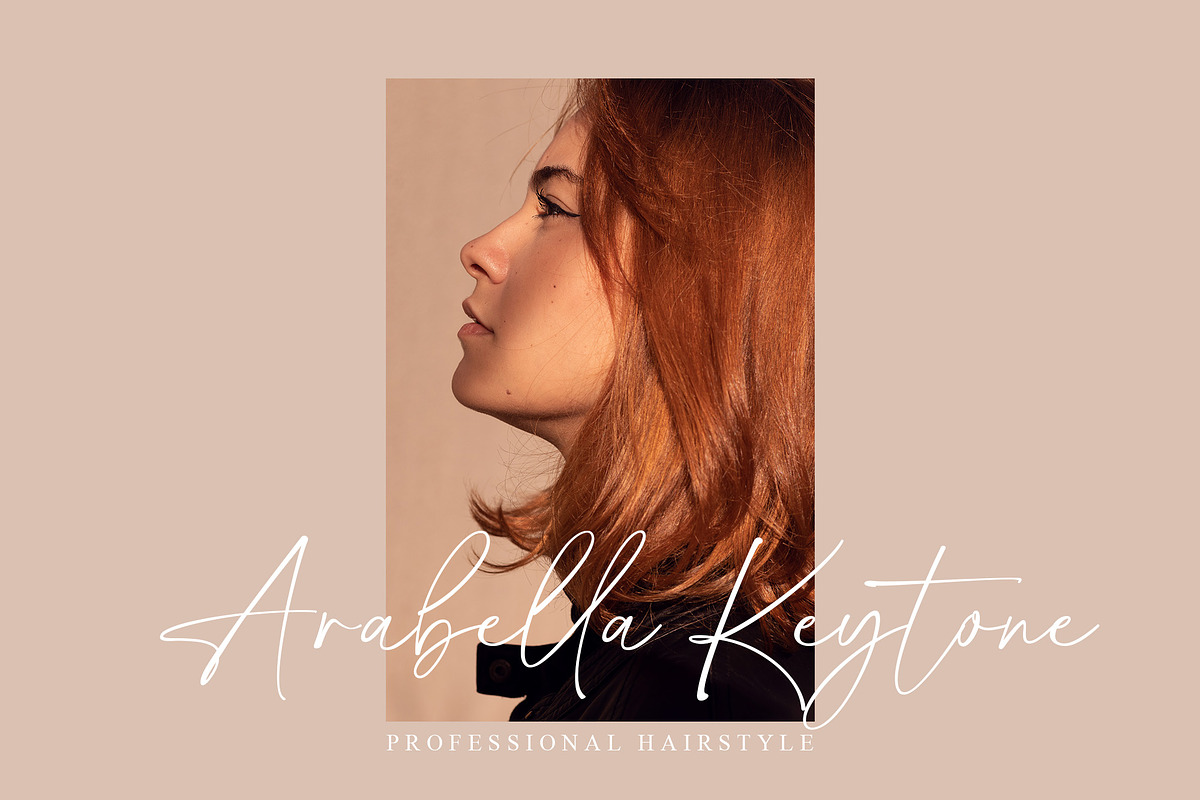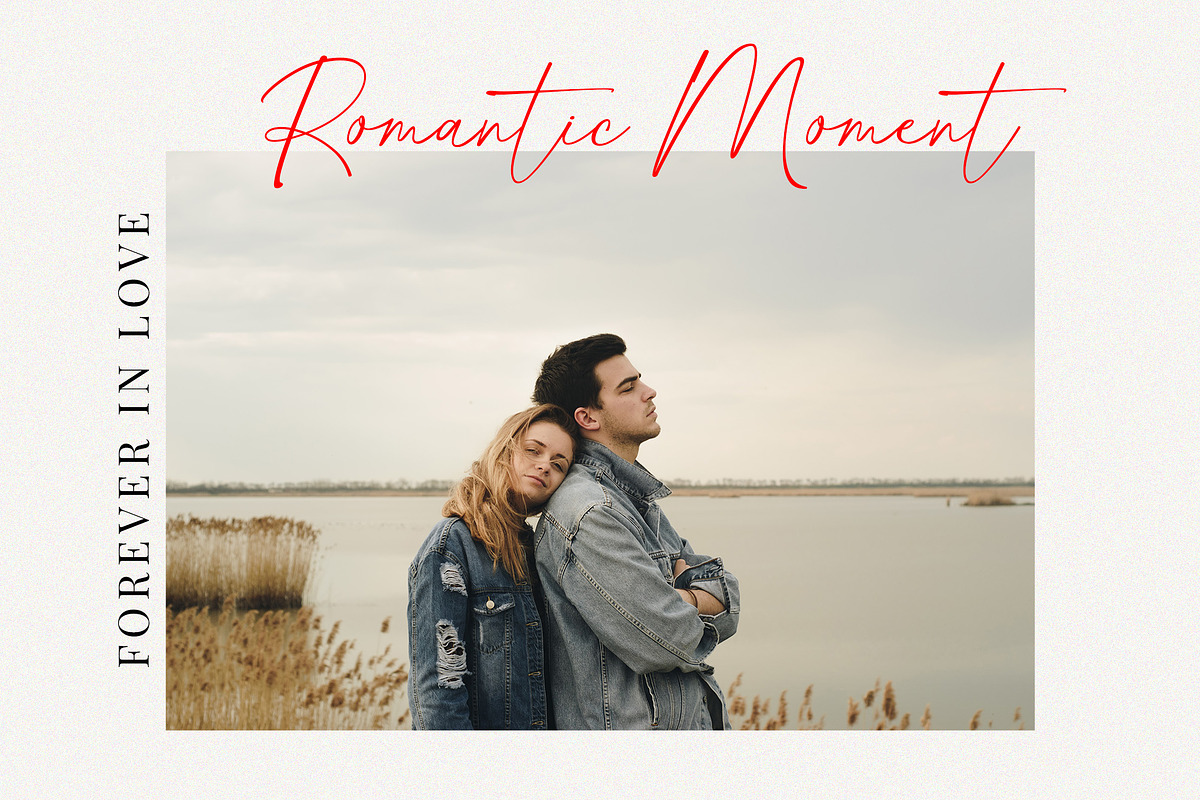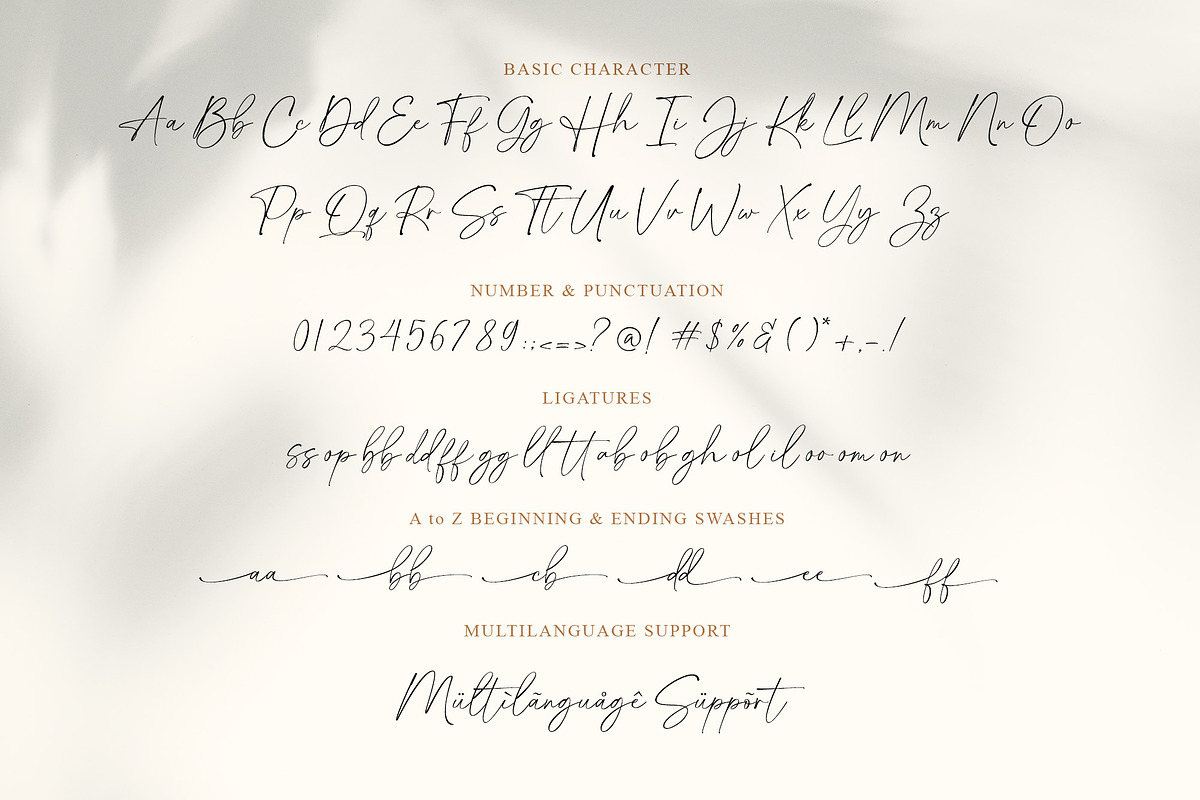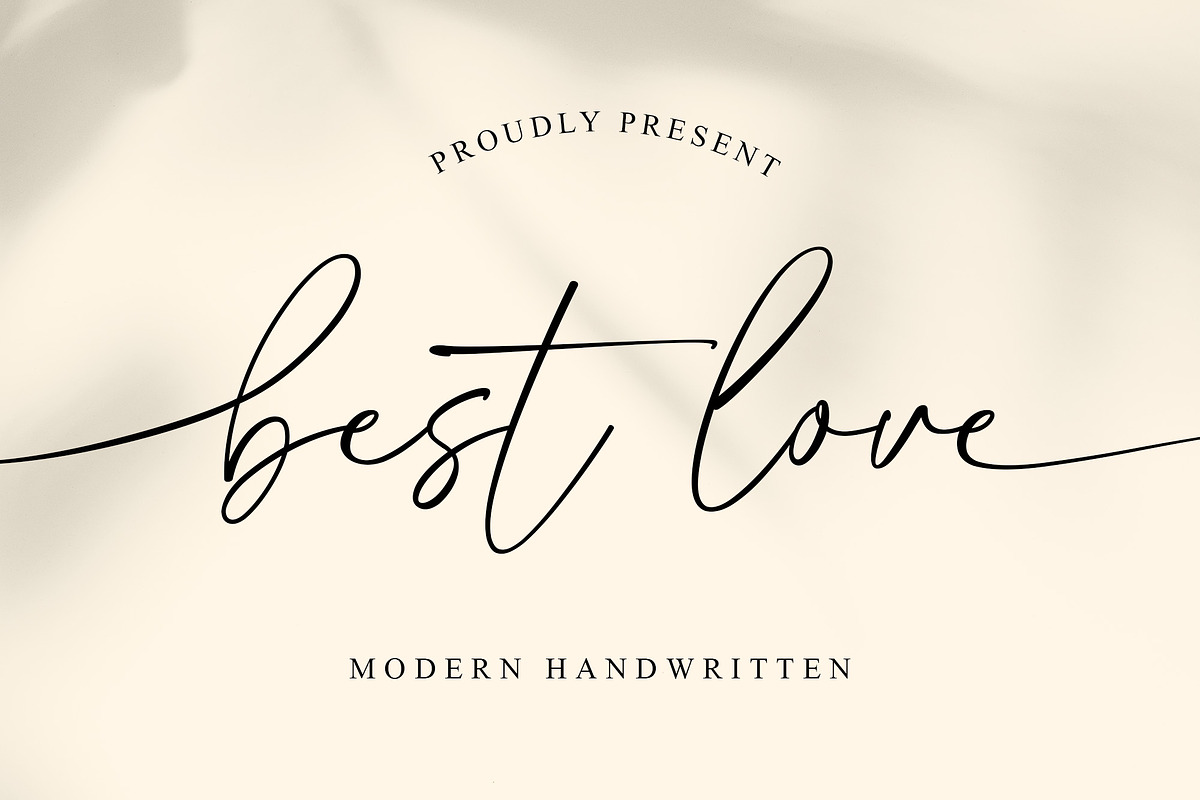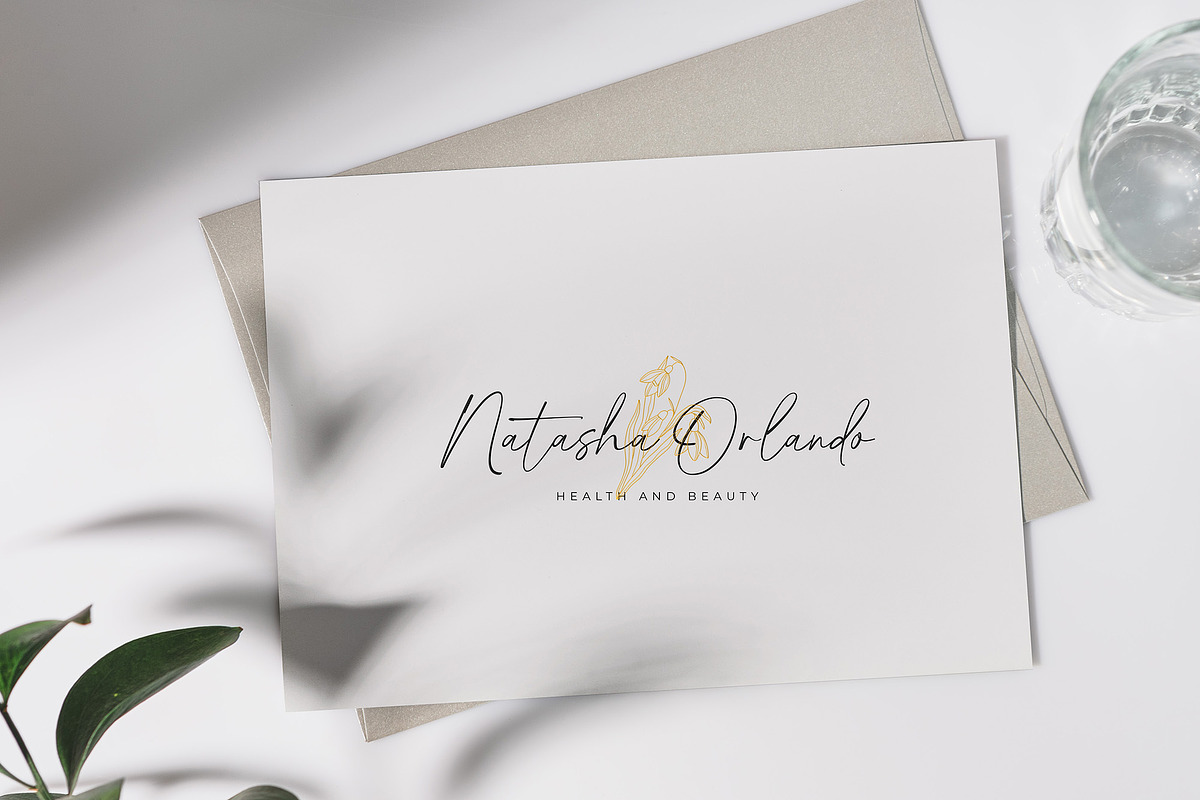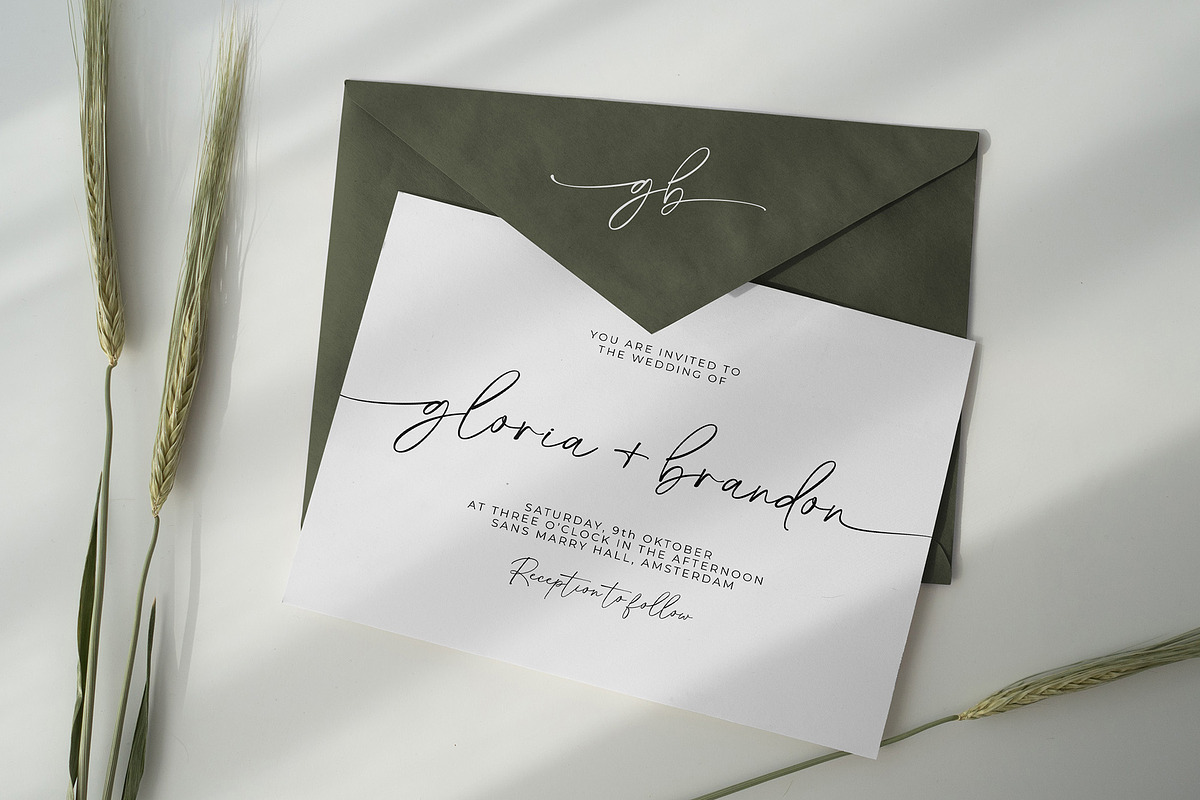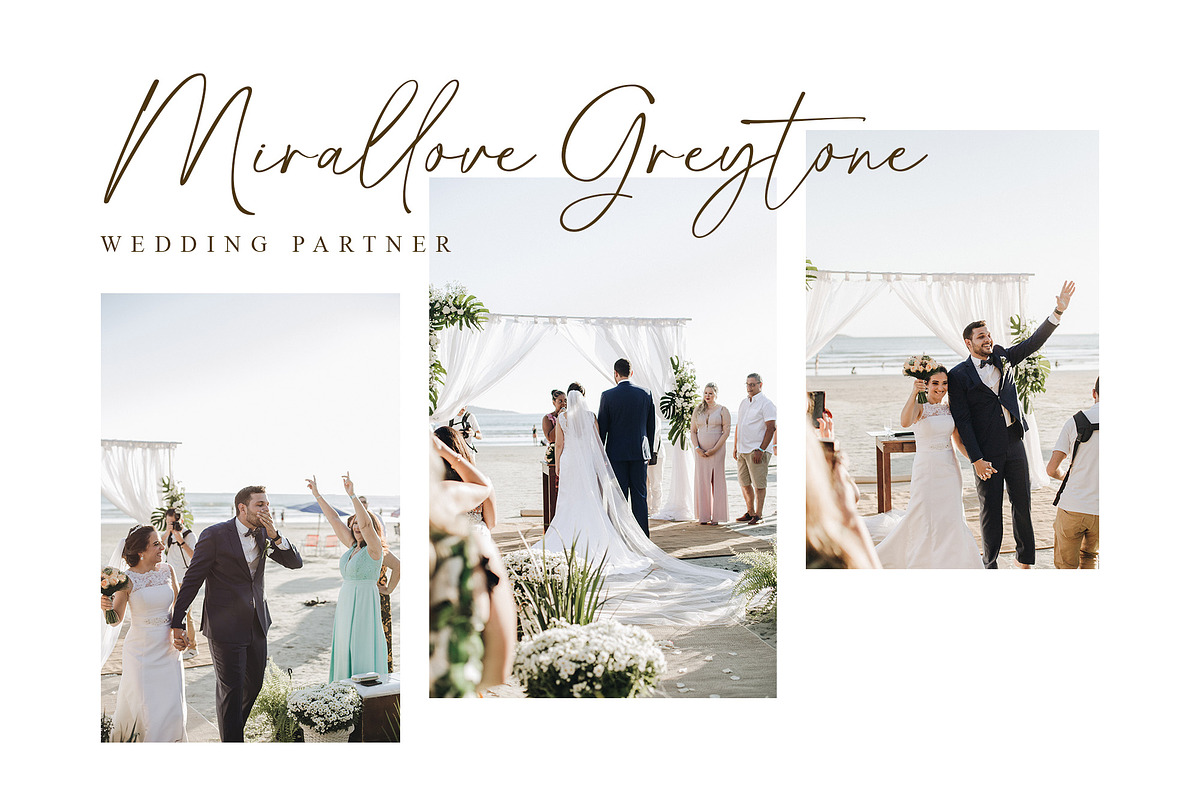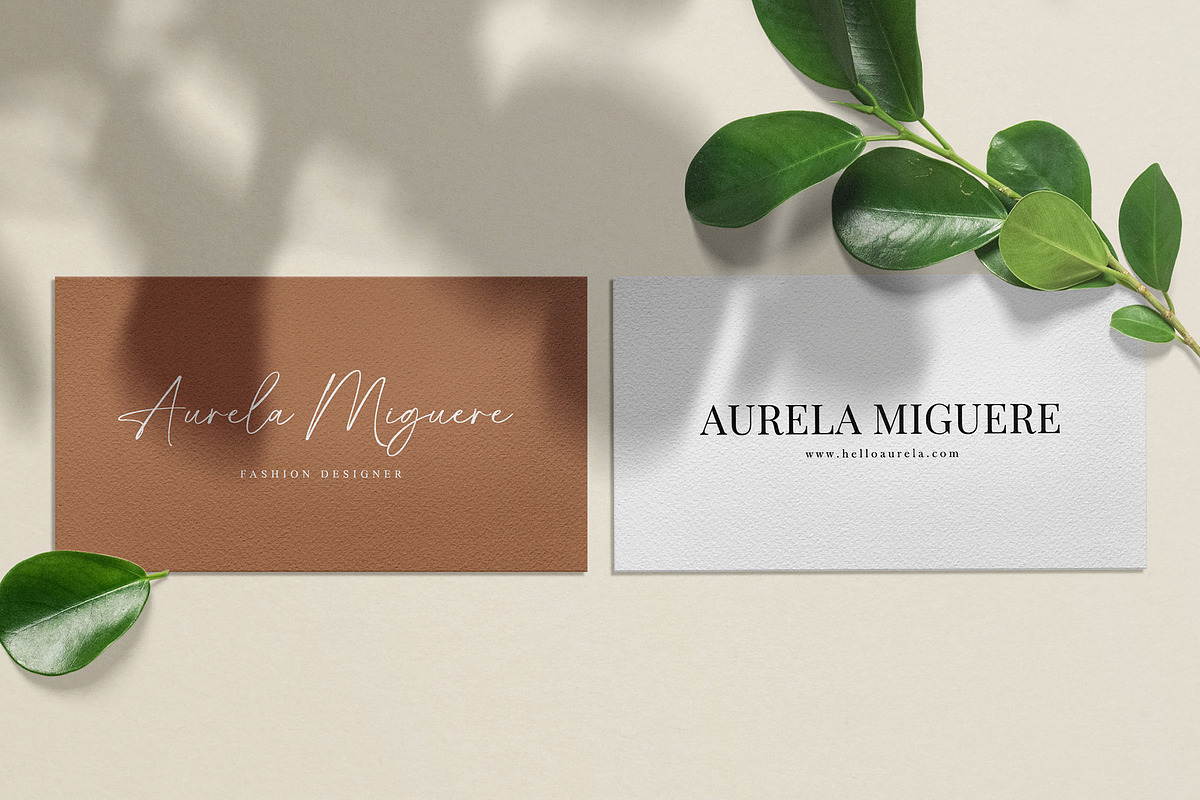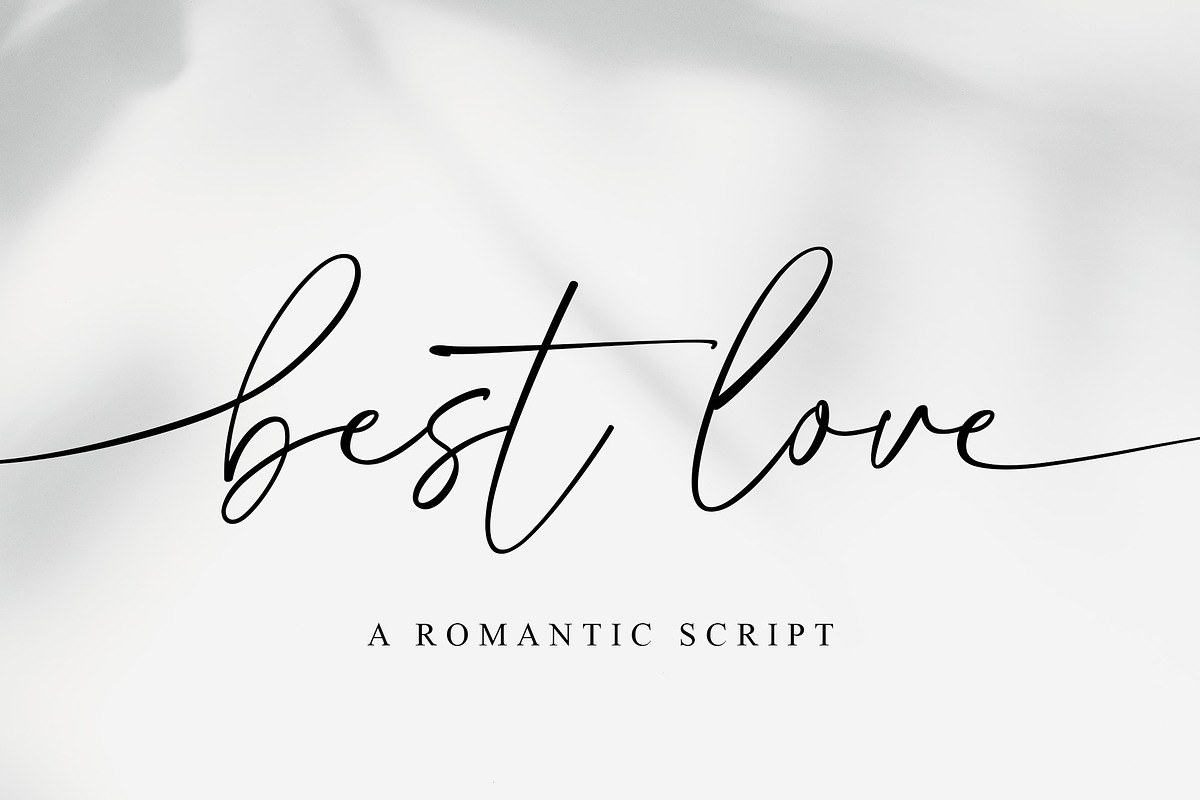
Best Love - A Romantic Font
Best Love is a modern handwritten script, it has a strong and casual style in every character, it will give a luxurious and modern impression in every design, very suitable for various needs, such as weddings, business cards, branding, watermarks, photography, signatures, logo designs, covers, and so on.